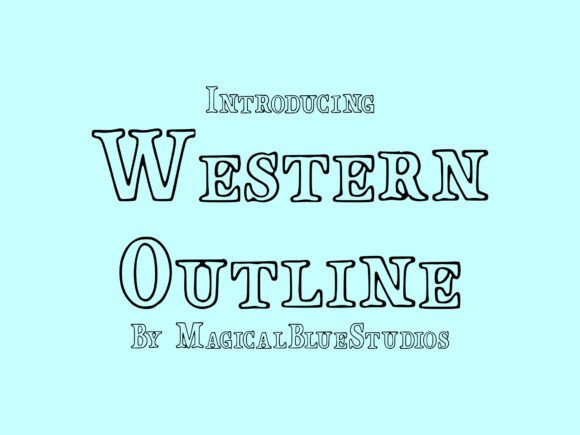
Unleashing the Wild West: The Power of Western Outline Font
The American frontier, with its rugged landscape, cowboy culture, and pioneering spirit, has long been a source of inspiration for designers, artists, and writers. One of the most iconic and enduring design elements of the Wild West is the Western outline font, a striking and distinctive typography style that captures the essence of the era. In this article, we’ll explore the unique characteristics, versatility, and creative applications of the Western outline font, and how it can add a touch of rustic charm and authenticity to your design projects.
The Quintessential Western-Style Aesthetic
The Western outline font is a masterful representation of the classic Western-style aesthetic, evoking images of tumbleweeds, saloon doors, and cowboy showdowns. The outlined characters, with their bold lines and rugged edges, convey a sense of strength, resilience, and adventure, transporting us to a bygone era of freedom and exploration. This font style is perfect for designers seeking to create a nostalgic or retro vibe, or to add a touch of country flair to their work.
Design Characteristics and Versatility
The Western outline font boasts a range of design characteristics that make it both versatile and visually striking. The outlined letters, often with a distressed or worn finish, add a delightful depth and dimension to any design. The font’s bold lines and rugged edges create a sense of texture and tactility, drawing the viewer’s eye and holding their attention.
This font style is highly adaptable, suitable for a wide range of creative applications, from vintage posters and cowboy-inspired branding to saloon signs, merchandise, invitations, and more. Whether you’re designing for digital or print mediums, the Western outline font pairs timeless appeal with a standout rustic Americana vibe, elevating your projects to new aesthetic heights.
Cinematic Applications: Film Titles, Posters, and More
The Western outline font is a natural fit for cinematic applications, particularly in the realm of Western films and television shows. Imagine a movie title sequence featuring bold, outlined letters, conjuring up images of dusty trails, gunslingers, and saloon showdowns. This font style is perfect for:
- Film titles and posters
- Movie trailers and promotional materials
- TV show titles and episode guides
- Western-themed event branding and marketing
Merchandise and Apparel: Adding a Touch of Wild West Flair
The Western outline font is also well-suited for merchandise and apparel design, adding a touch of rustic charm and Wild West flair to a range of products. Consider using this font style for:
- T-shirts and hoodies
- Posters and prints
- Mugs and water bottles
- Hat and accessory designs
Whether you’re creating custom merchandise for a business, event, or personal project, the Western outline font is sure to make a bold statement.
Digital Applications: Websites, Social Media, and More
The Western outline font is not limited to print mediums; it’s also highly effective in digital applications. Consider using this font style for:
- Website headers and titles
- Social media graphics and posts
- Email newsletters and marketing campaigns
- Digital signage and display ads
The Western outline font’s bold, rugged aesthetic cuts through digital clutter, drawing the viewer’s eye and communicating your message with clarity and impact.
Invitations and Events: Adding a Touch of Rustic Elegance
The Western outline font is an excellent choice for invitations and events, adding a touch of rustic elegance and Wild West charm to your designs. Consider using this font style for:
- Wedding invitations and stationery
- Event posters and flyers
- Party invitations and decorations
- Corporate events and branding
The Western outline font’s unique blend of ruggedness and sophistication makes it perfect for events that require a touch of country flair.
Tips for Using the Western Outline Font
To get the most out of the Western outline font, consider the following design tips:
- Pair with complementary fonts: Combine the Western outline font with serif or script fonts to create visual interest and contrast.
- Experiment with colors: Try pairing the font with bold, vibrant colors to amplify its rustic charm.
- Use texture and patterns: Add depth and tactility to your design with texture and patterns that evoke the Wild West.
- Keep it simple: Don’t overcomplicate your design – let the Western outline font take center stage.
The Western outline font is a powerful design element that captures the raw allure of the American frontier. With its bold lines, rugged edges, and distinctive outlined characters, this font style is perfect for designers seeking to add a touch of rustic charm and Wild West flair to their projects. Whether you’re creating vintage posters, cowboy-inspired branding, or themed merchandise, the Western outline font is sure to make a bold statement. So why settle for ordinary typography when you can immerse yourself in the extraordinary world of the Western outline font?